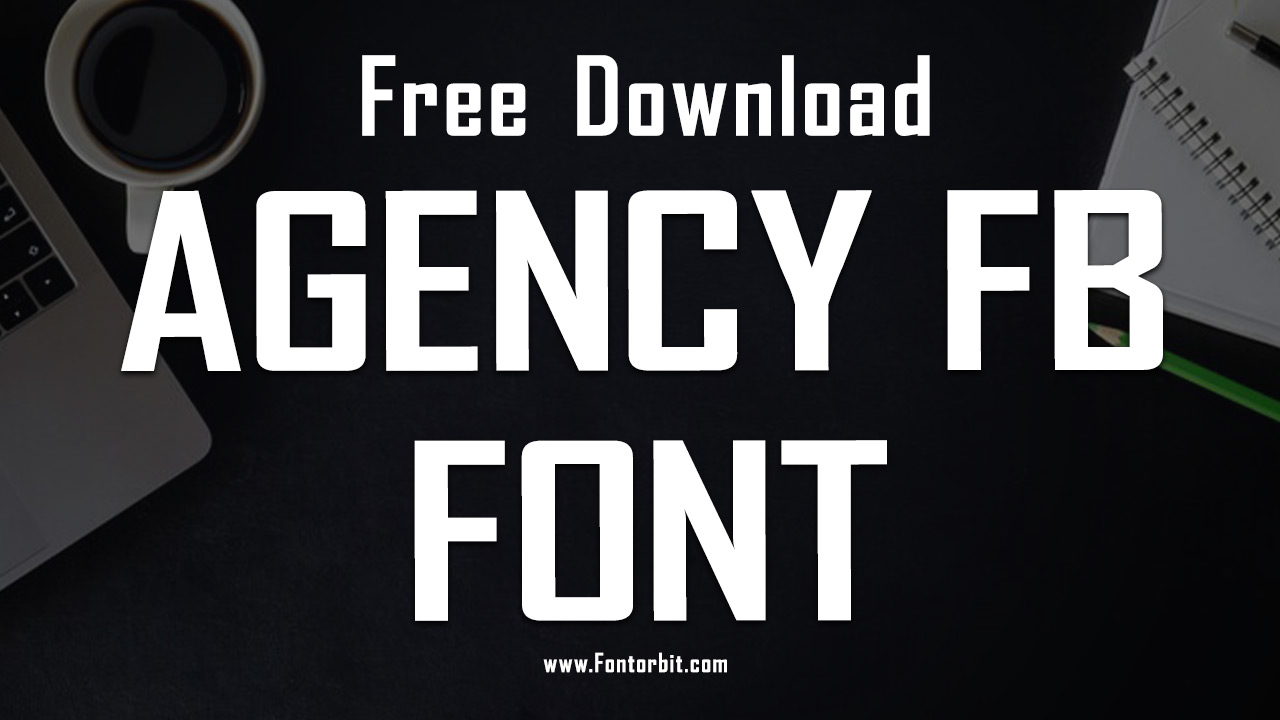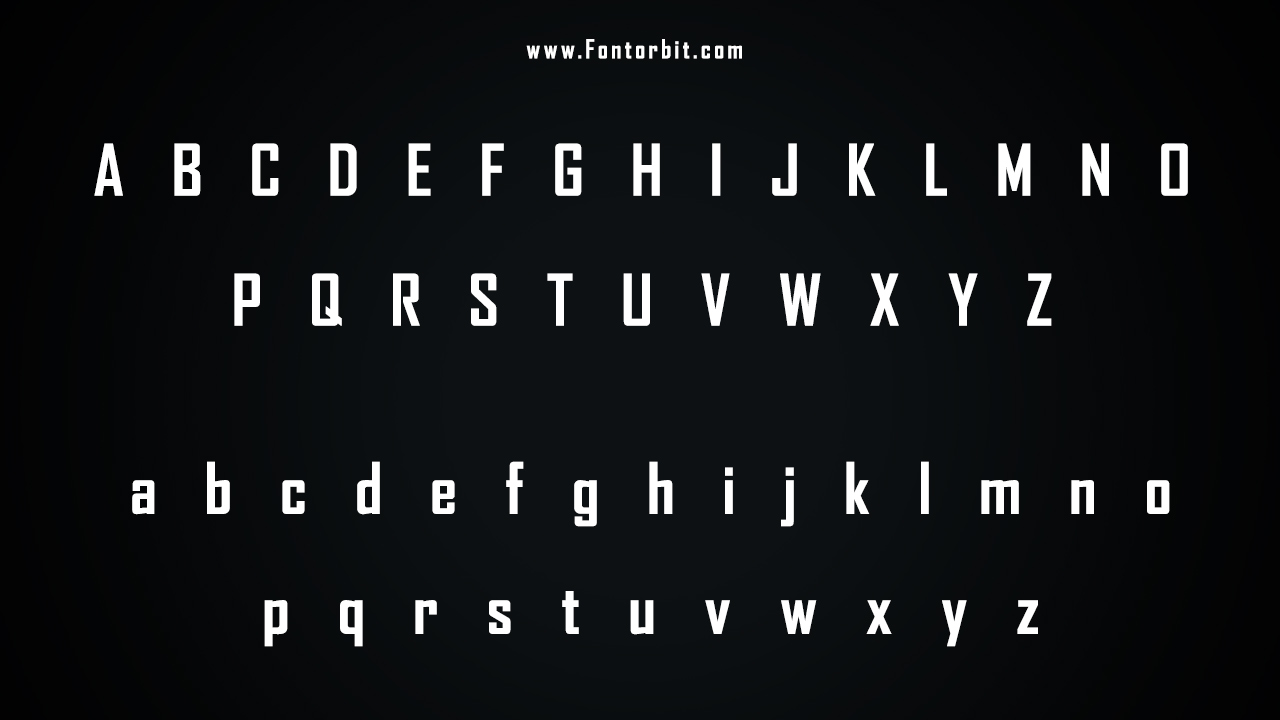
Agency FB Font is a sophisticated geometric sans-serif typeface that stands out for its clean lines and contemporary style.
Designed by David Berlow and published by Font Bureau, this font family is an expansion of a classic titling face created in the 1930s by Morris Fuller Benton. Released between 1990 and 1995, Agency FB brings a modern twist to a vintage design, making it a versatile choice for various applications.
Font Family Features
Agency FB is known for its geometric precision and strong visual impact. The font family includes a comprehensive set of characters, encompassing uppercase and lowercase letters, numerals, and punctuation. Its design is inspired by Benton’s classic Bank Gothic but adds a more modern touch with expanded widths and weights. The font family features:
Each style maintains the geometric integrity of the original design while offering a range of weights to suit various design needs.
Design Contexts To Use This Font
Agency FB’s clean, geometric style makes it an excellent choice for a range of design applications. It excels in contexts where clarity and impact are essential, including:
- Packaging
- Corporate Branding
- Advertisements
- Presentations
Agency FB is a standout choice for designers looking for a typeface that combines geometric precision with modern elegance. Its expansion of Benton’s classic design makes it versatile for a range of applications, from professional branding to striking headlines. With its clean lines and contemporary style, Agency FB is perfect for any project that demands a bold, modern touch.
1.What Are The Recommended Font Sizes For Agency FB?
Agency FB is best used in sizes 18pt and above for headlines and 10pt to 14pt for body text. The geometric design maintains its impact at larger sizes while remaining legible at smaller sizes.
2.How To Create A Cohesive Design Using Agency FB?
Combine Agency FB with complementary serif fonts or other geometric sans-serifs to create a balanced and polished look. Use consistent sizes and spacing to ensure harmony with other design elements.
3.How To Customize Agency FB For Specific Needs?
4.What Are The Best Pairings For Agency FB?
Pair Agency FB with classic serifs like Times New Roman or modern serifs like Georgia for a balanced and professional look. It also complements other geometric sans-serifs like Futura or Avenir.
5.What Are The Differences Between Agency FB And Other Similar Fonts?
Agency FB features a distinctive geometric style with a clean, modern aesthetic that sets it apart from other sans-serifs. Its expansion from a classic design gives it a unique blend of vintage and contemporary appeal.
6.What Are The Best Tools For Pairing Agency FB With Other Fonts?
7.What Are The Color Options For Agency FB Font?
Agency FB works well with both high-contrast colors and subtle tones. Black and white provide a classic look, while vibrant colors can add a modern touch.